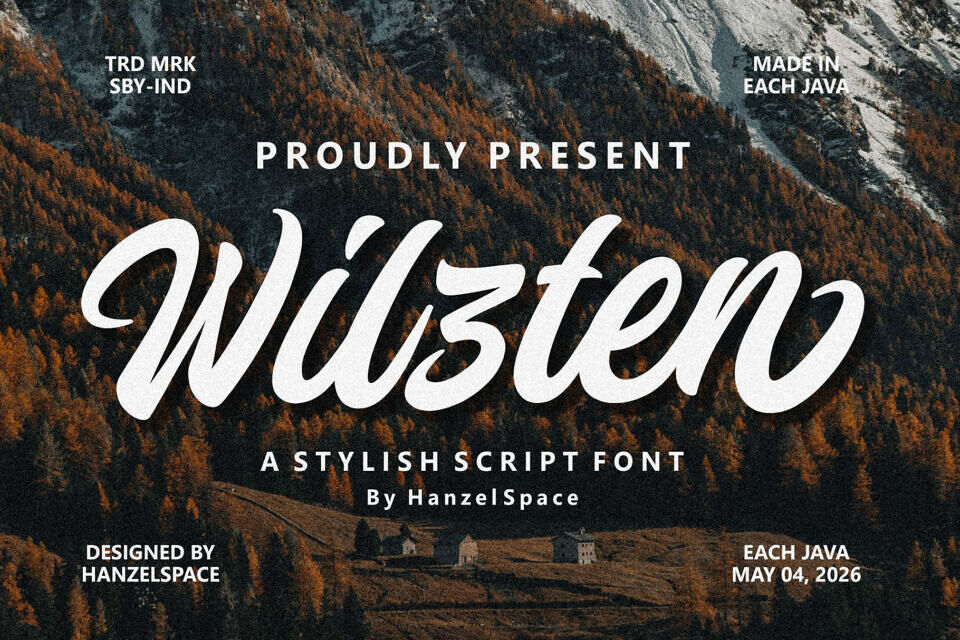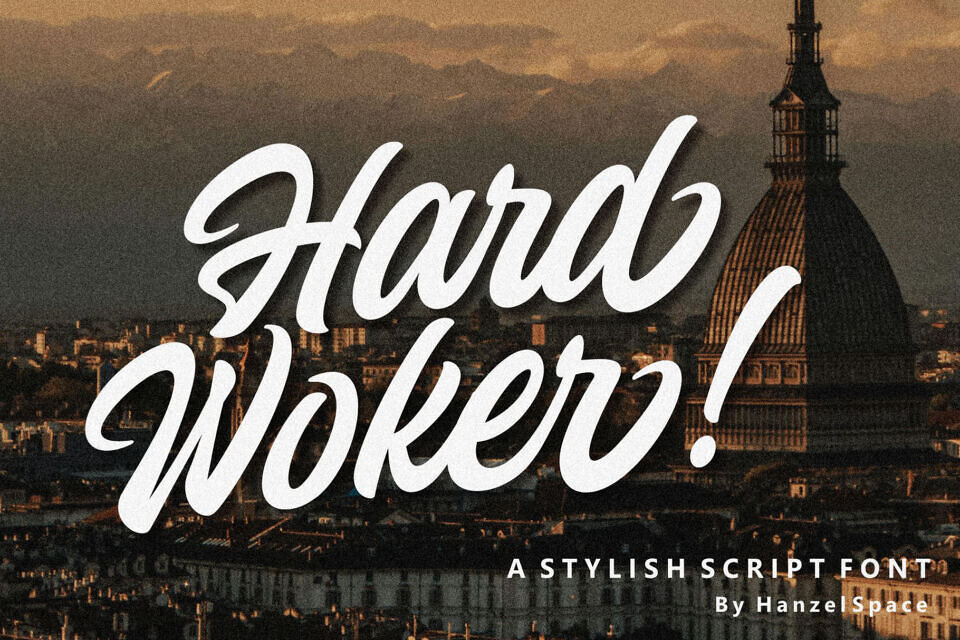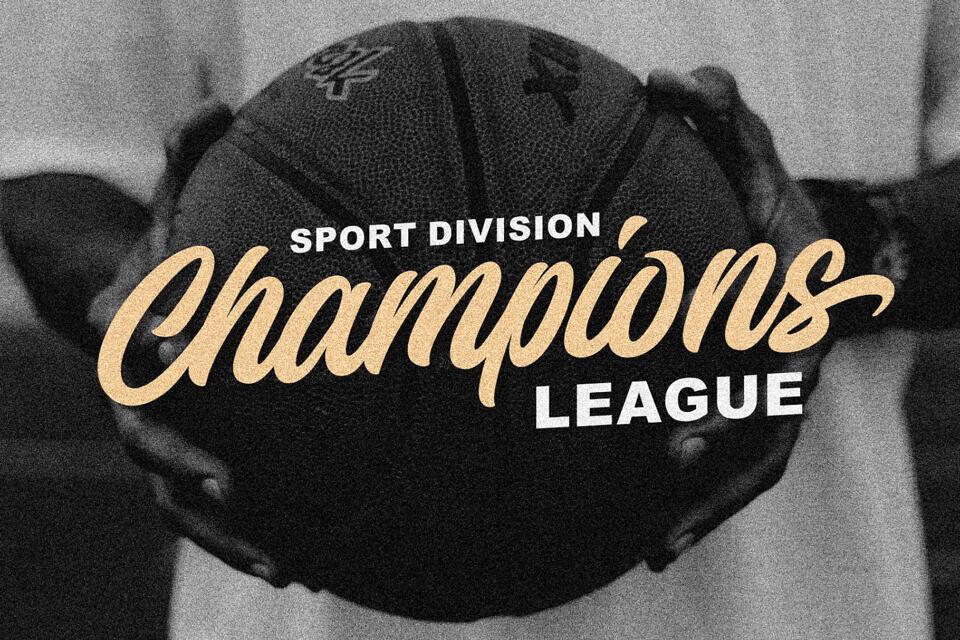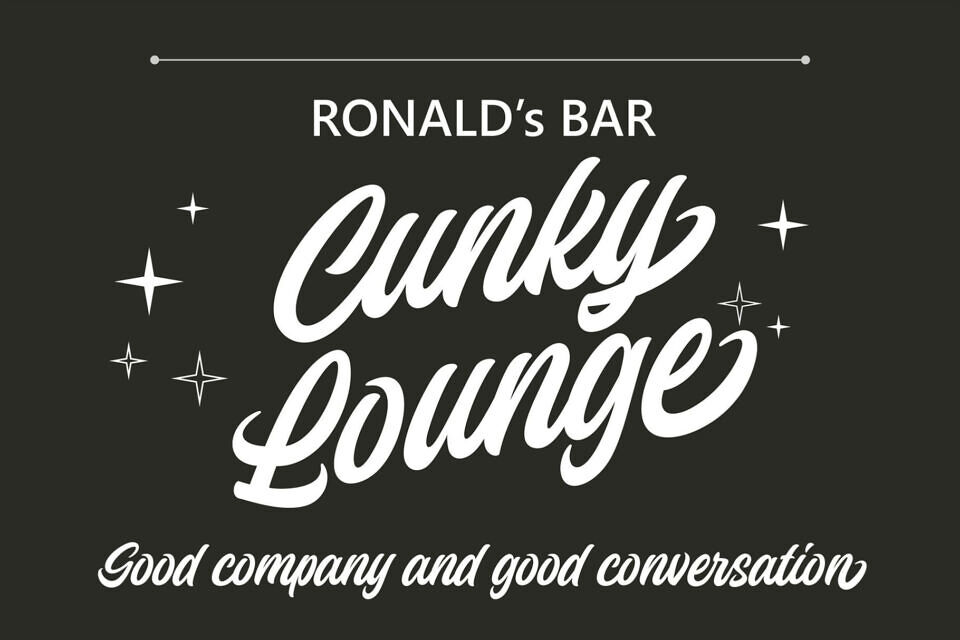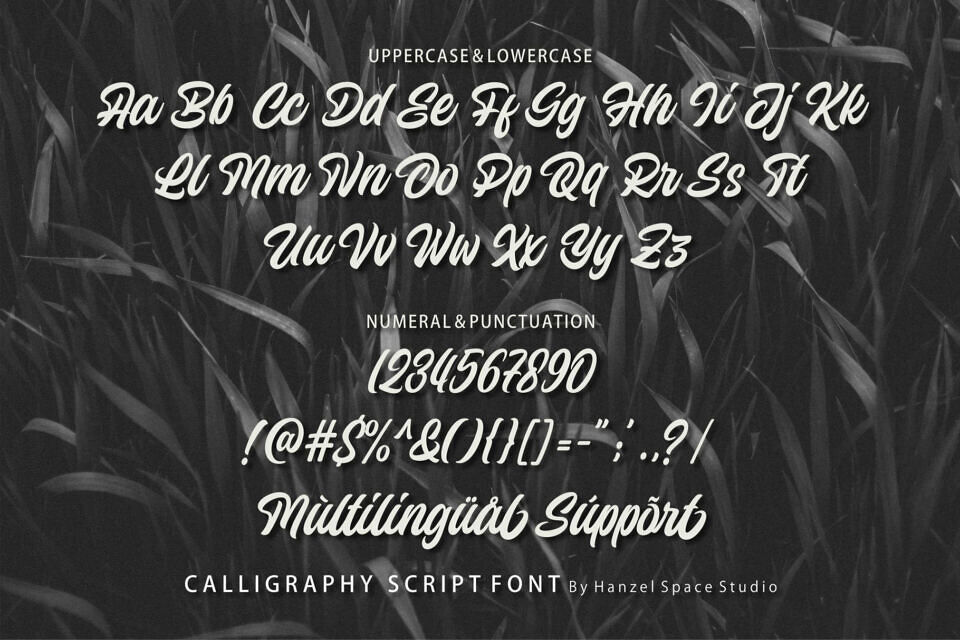
Wilzten is a vibrant script font with a dynamic flair. Its energetic style makes it perfect for a range of applications, from titles and signatures to logos, t-shirts, and posters. Whether you’re designing a newsletter, label, or badge, Wilzten’s unique touch can elevate your project and make it stand out.